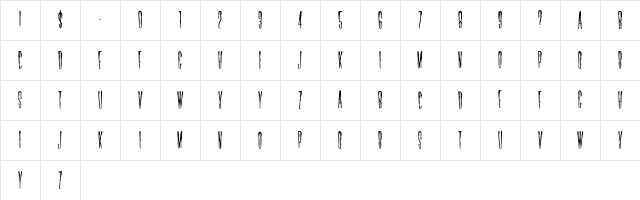
Horror Hotel Free Font
Horror Hotel
Style: Hotel
Design Context for Horror
Horror carries an unsettling edge - its distorted letterforms are built to unsettle, perfectly suited to horror, Halloween, and dark creative work.